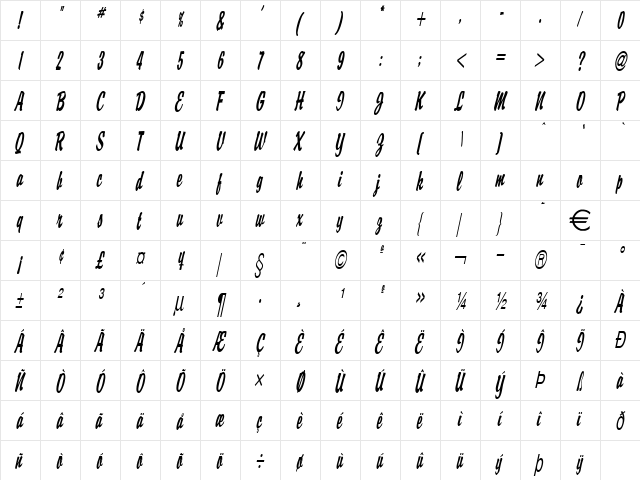
BriskDThin Italic Font Preview
Design Context for BriskDThin Typeface
BriskDThin takes a measured approach to typography — its balanced proportions and neutral character make it a reliable workhorse for both digital and print work. Its italic angle brings a sense of urgency and motion to the letterforms. The delicate stroke weight brings airiness and refinement to layouts.
Pro Tip: Try BriskDThin for annotation and caption copy alongside an upright companion — the contrast in angle creates a dynamic but ordered typographic system.